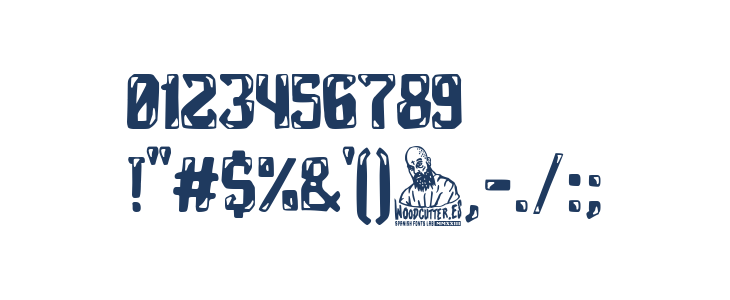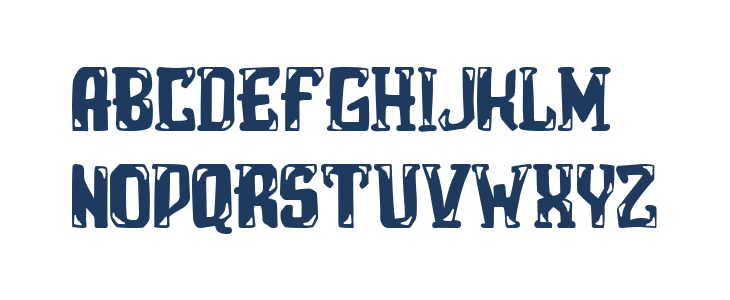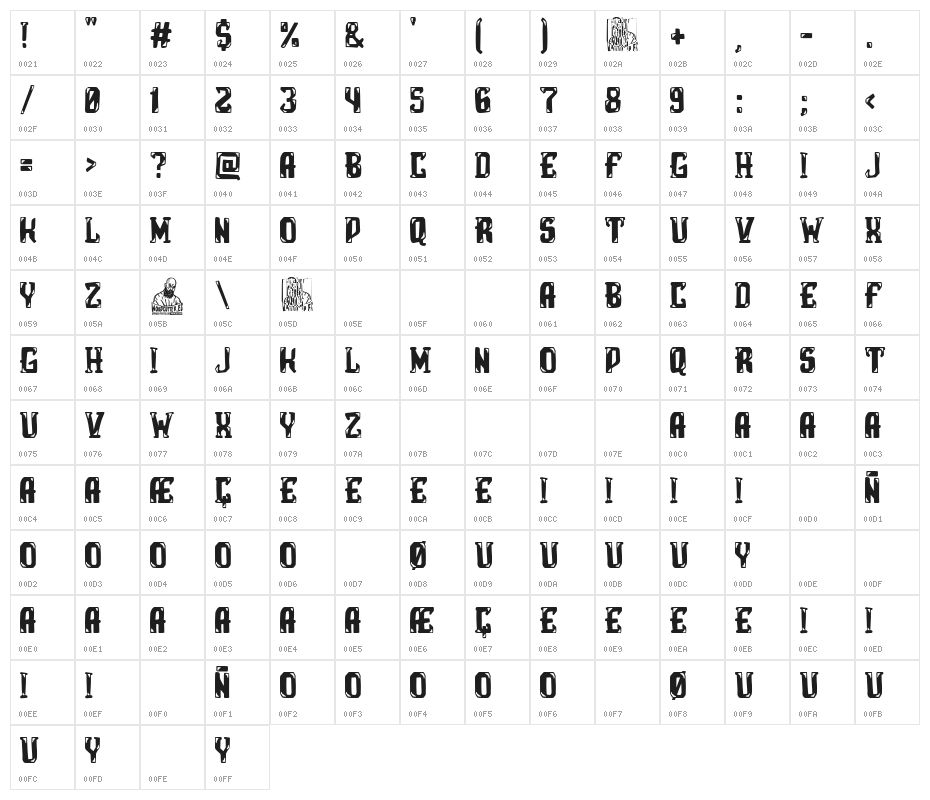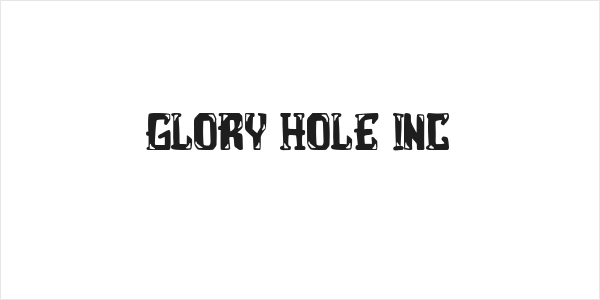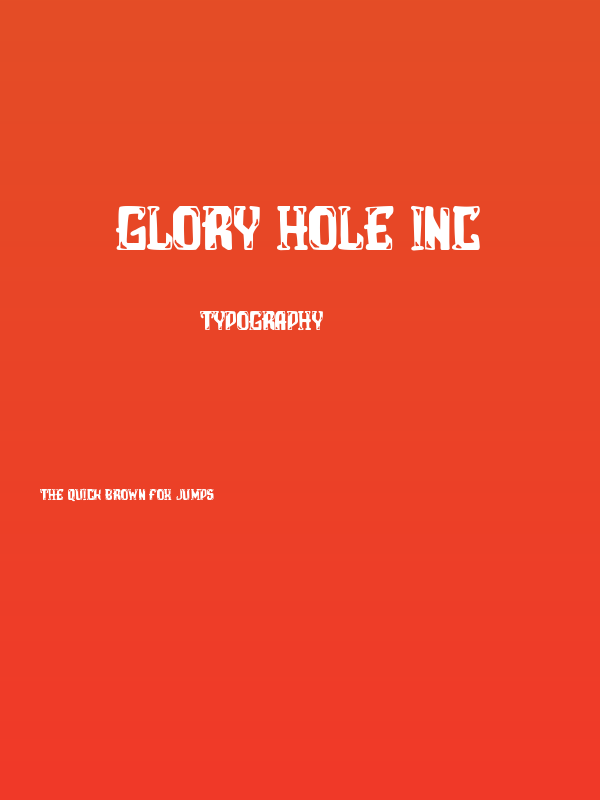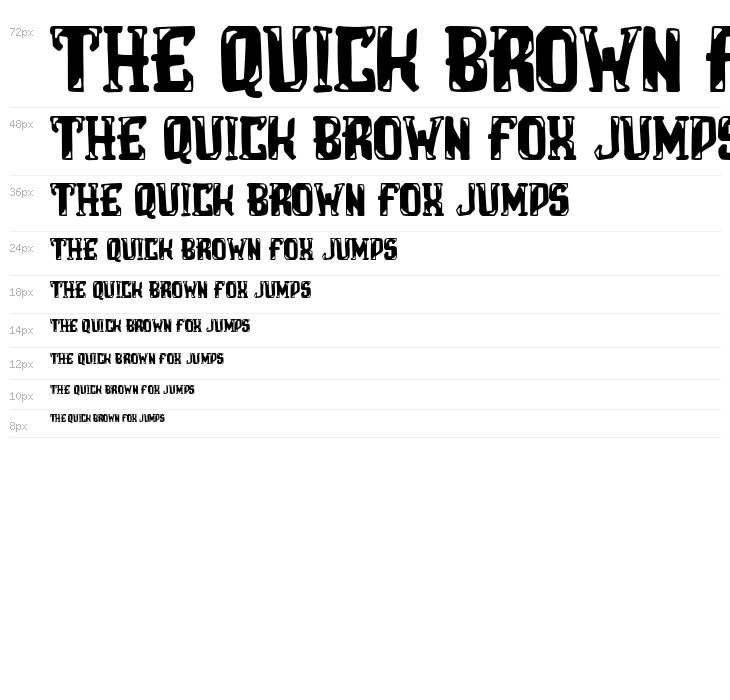
Glory Hole Inc Font
Glory Hole Inc Description
A bold, decorative display font with stencil-like cutouts and irregular edges, giving it a rugged, industrial feel. The characters are uppercase with consistent height and width, and the numerals and symbols follow the same bold, blocky style.
| Overall Style | Decorative, Industrial, Rugged |
| Proposed Projects | Posters, event flyers, signage, album covers, branding for industrial or alternative themes. |